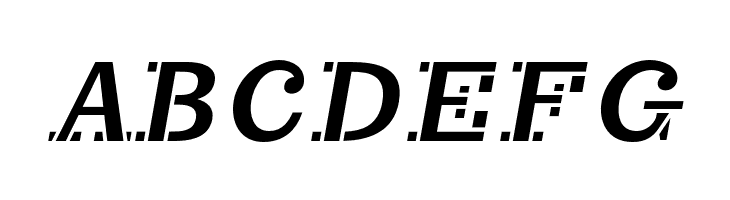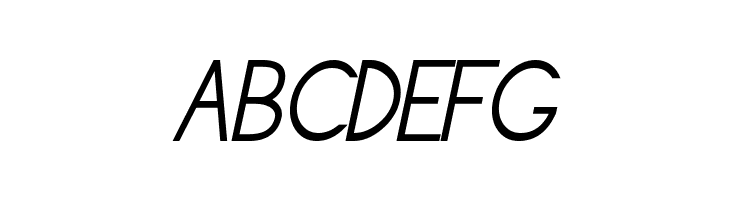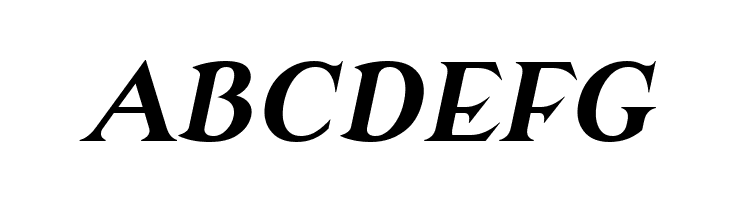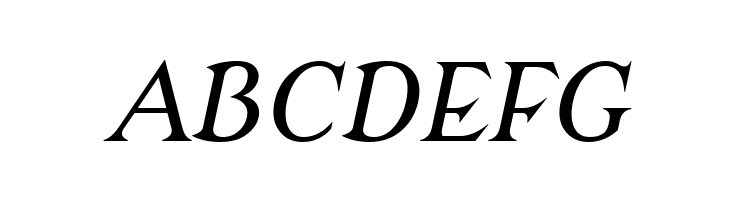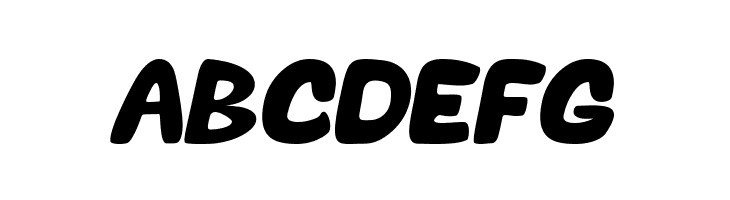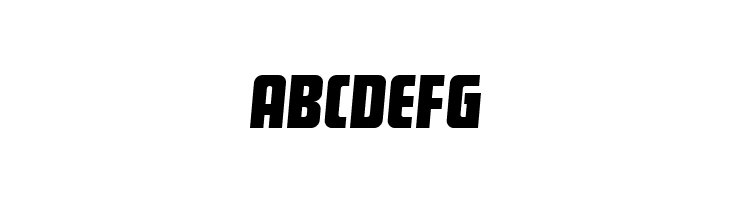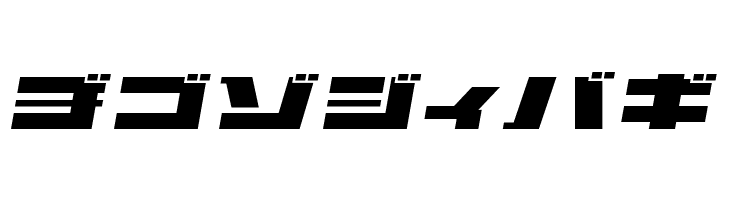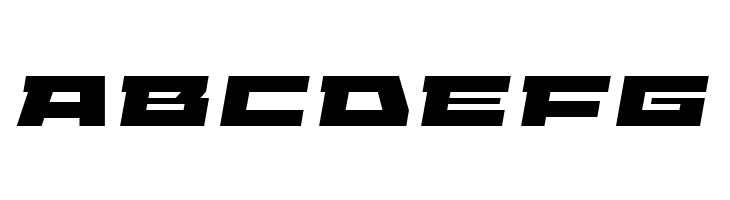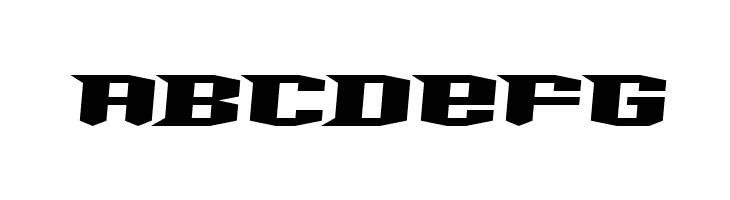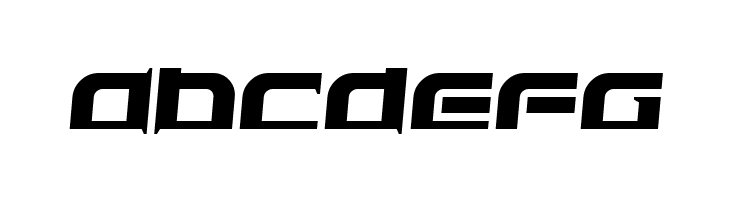
Bitstream Vera Sans Bold Oblique Font
A bold, oblique font with a modern and dynamic style.
DejaVu Sans Bold Oblique Font
A bold, oblique sans-serif font with a modern and clean design.
BigNoodleTitling Oblique Font
A bold, oblique font with a modern and dynamic style.
D3 Cozmism Oblique Font
A bold, futuristic font with an oblique slant and geometric design.
SF Quartzite Bold Oblique Font
A bold, oblique sans-serif font with a dynamic and modern style.
Warsaw Gothic Woodtype Oblique Font
A bold, oblique font with a vintage woodtype feel, perfect for impactful designs.
Mister Belvedere Oblique Font
A bold, oblique font with angular, geometric characters for a modern, dynamic look.
Samarkan Oblique Font
An elegant, oblique script font with a dynamic and sophisticated style.
SF Slapstick Comic Shaded Oblique Font
A bold, shaded, and oblique comic-style font with a playful and dynamic appearance.
DejaVu Sans Condensed Bold Oblique Font
Bold, oblique, and condensed sans-serif font with a modern and dynamic style.
SF Quartzite Oblique Font
A modern, oblique font with bold, condensed characters and a sleek design.
VeranaSansDemi-Oblique Font
A modern, oblique sans-serif font with clean lines and a dynamic appearance.
AnalogueReduced-Medium Font
A clean, modern sans-serif font with balanced, bold characters.
GeosansLight-Oblique Font
A sleek, modern, and oblique sans-serif font with light weight and medium contrast.
Moonshiner-Oblique Font
A bold, dynamic oblique font with sharp angles and a strong presence.
Jhiaxus Oblique Font